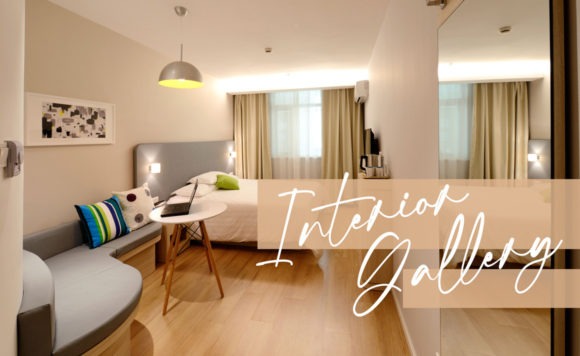
Cambridge Handwritten Font
This is inspired by classic typography and brings its own unique style to any design project. Fall in love with its ravishing style, and use it to create awesome logos, branding designs, signatures, web fonts, stationery art, eye-catching social media posts, and more!